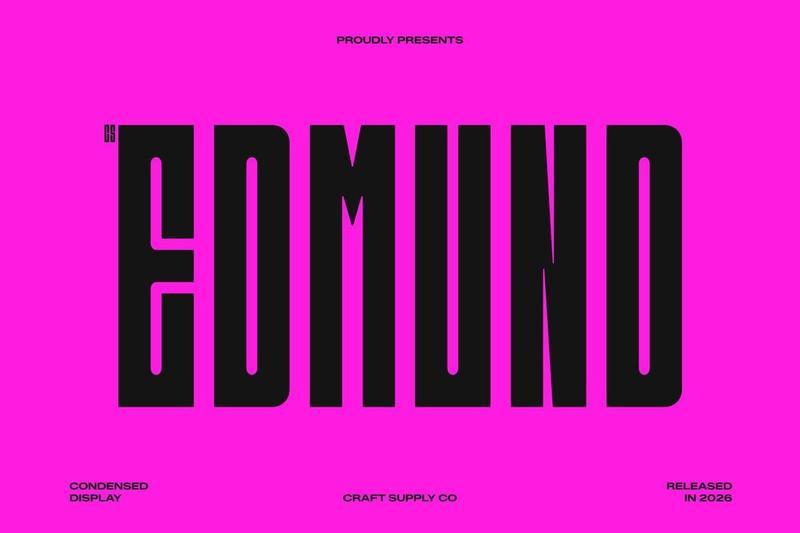
CS Edmund Condensed Display Font with Industrial Modern Style
Condensed Display Font with Sleek Contemporary Design
This is a condensed display font crafted to deliver a sleek, modern, and industrial visual identity. With its streamlined proportions and bold structure, this typeface creates a strong presence that feels contemporary and highly functional. It is designed for creators who need typography that communicates confidence, precision, and modern energy.
Industrial Character with Clean Geometry
The letterforms feature firm shapes and clean geometric construction, giving the font a technical and industrial-inspired appearance. Its structured design creates a sense of stability and strength while maintaining a polished and professional look. This balance makes this font suitable for both creative and commercial applications.
Compact Form with Bold Visual Impact
The condensed proportions allow text to fit efficiently into tight layouts while preserving readability and impact. Each character is carefully shaped to appear tall, compact, and commanding, making the font ideal for bold headlines and space-conscious compositions. This efficient design ensures every word remains sharp and attention-grabbing.
Perfect for Titles, Posters, and Industrial Design
From posters and industrial branding to editorial titles and digital graphics, this font adapts effortlessly across modern creative projects. Its combination of sleek design, industrial character, and strong readability ensures your typography feels bold, contemporary, and visually striking.